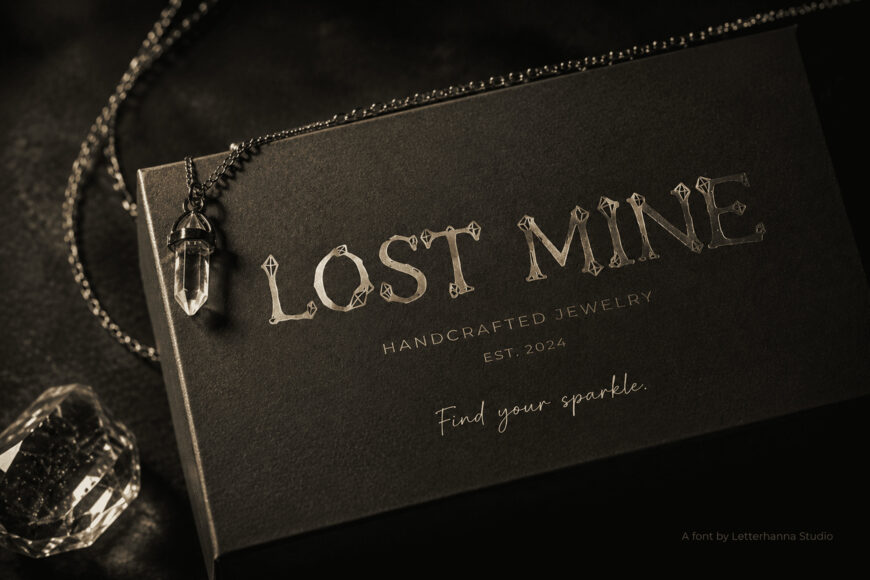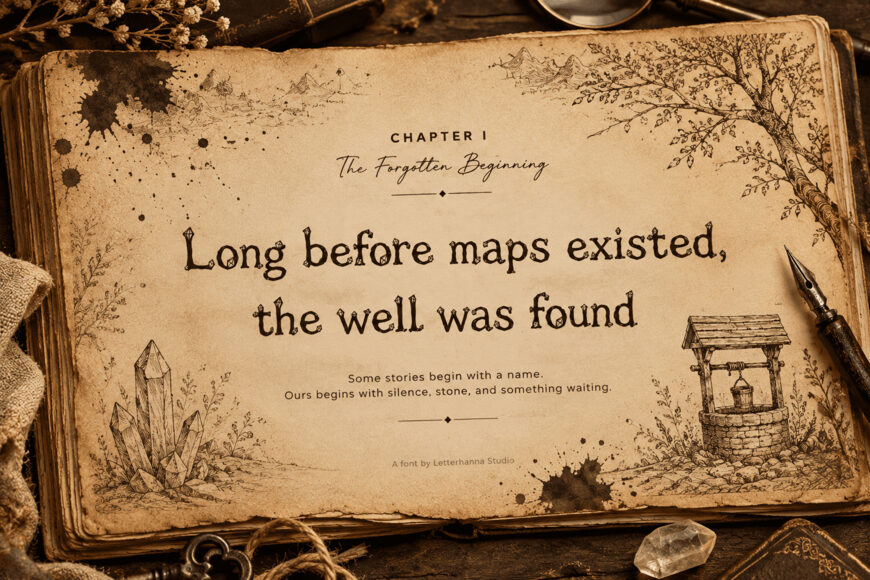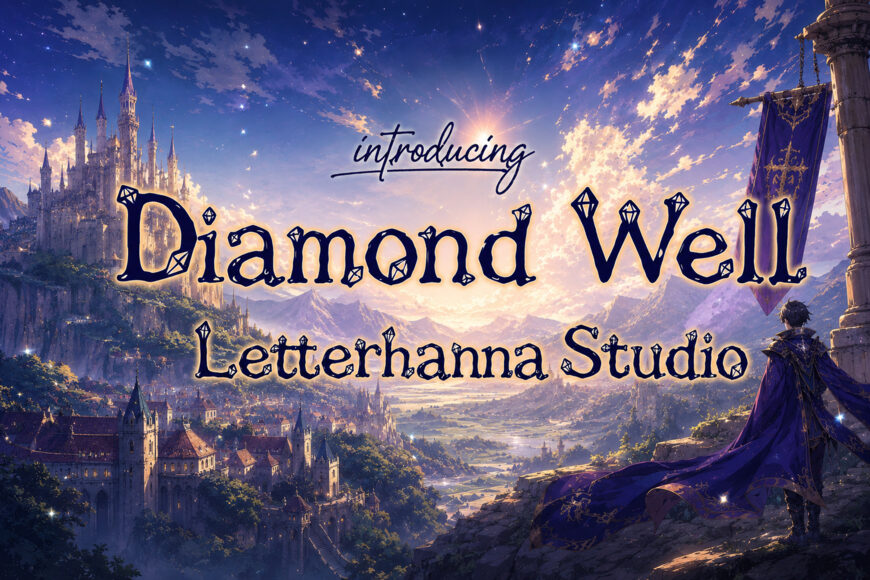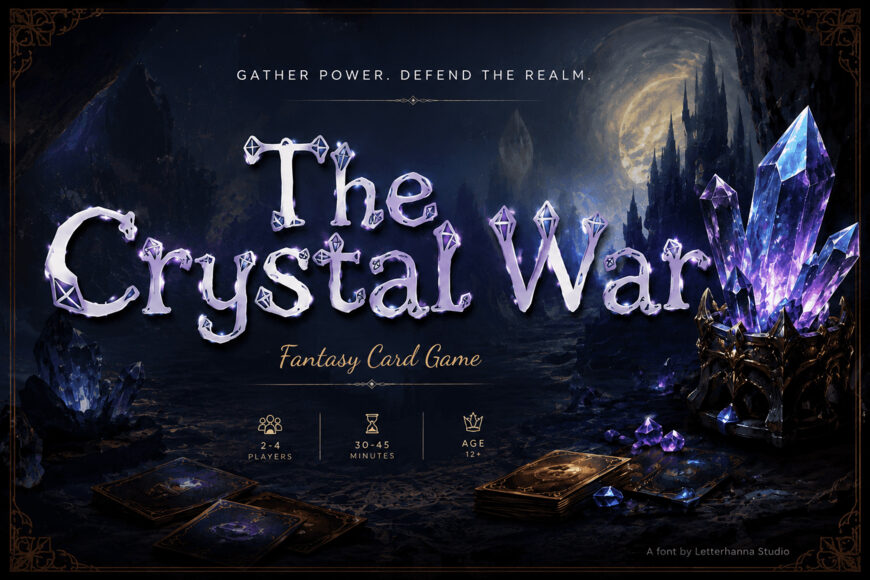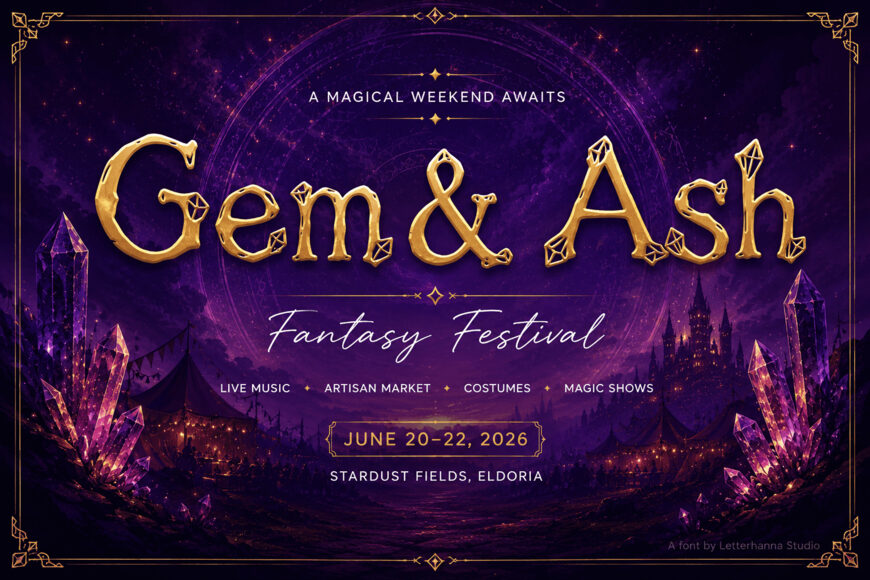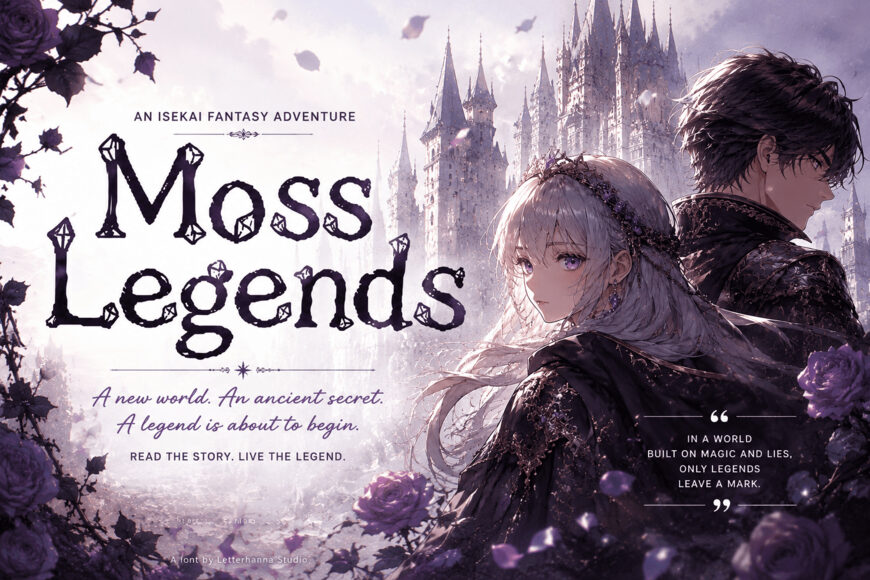
Diamond Well Font
Diamond Well breaks away from generic fantasy fonts with its hand-inked, sketchy lettering and faceted crystal accents. Rough double-stroke outlines evoke old spellbooks and fantasy maps, while gem details add a magical, mysterious touch.
This unique blend feels handcrafted yet refined, making it versatile for fantasy novels, RPGs, storybooks, jewelry branding, premium packaging, and witchy designs. Playful but sophisticated, Diamond Well brings texture, storytelling, and an otherworldly character to every letter.